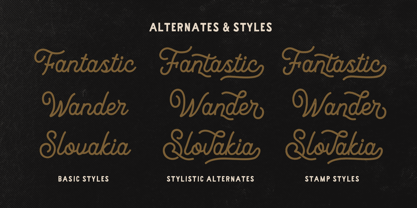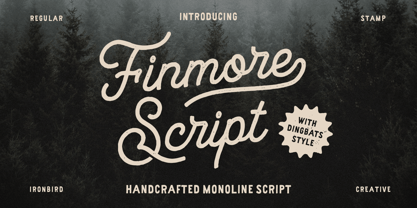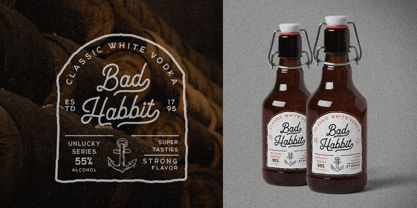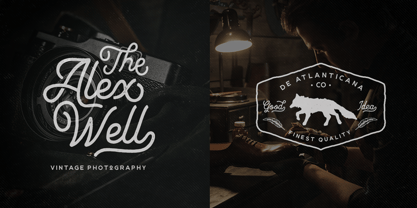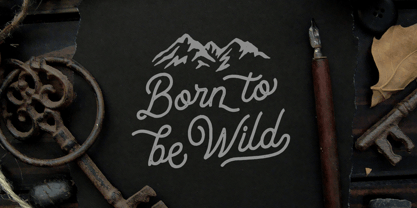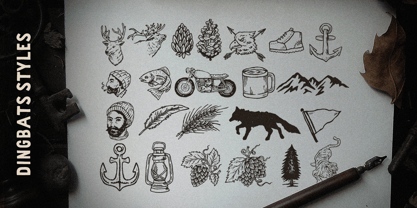
Finmore
by Ironbird Creative
The Finmore Font Family was designed by Septianto Nugroho and published by Ironbird Creative. Finmore contains 3 styles and family package options. More about this family
The Forest Factory is a handcrafted monoline script font. Designed with smooth curves and authentic handmade details, it brings a timeless charm to your creative projects. This typeface comes with three distinct styles Regular, Stamp, and Dingbats. Each style captures the warmth of retro craftsmanship while maintaining excellent readability for modern use. Perfect for branding, logos, apparel, packaging, posters, and social media graphics, The Forest Factory adds a personal touch that feels both nostalgic and fresh. Whether you’re working on a rustic coffee label, outdoor adventure brand, or bold retro headline, this font will help your work stand out.
Designers: Septianto Nugroho
Foundry: Ironbird Creative
Ironbird Creative is an independent design studio. Based in Klaten city - Indonesia, started in 2019 and run by Septianto Nugroho and his team. Specialized in handmade style to present high quality typography and vintage items that suitable for today creatives with suitable prices, we want to offer people in the industry to use fonts and illustrations for their daily business or project.